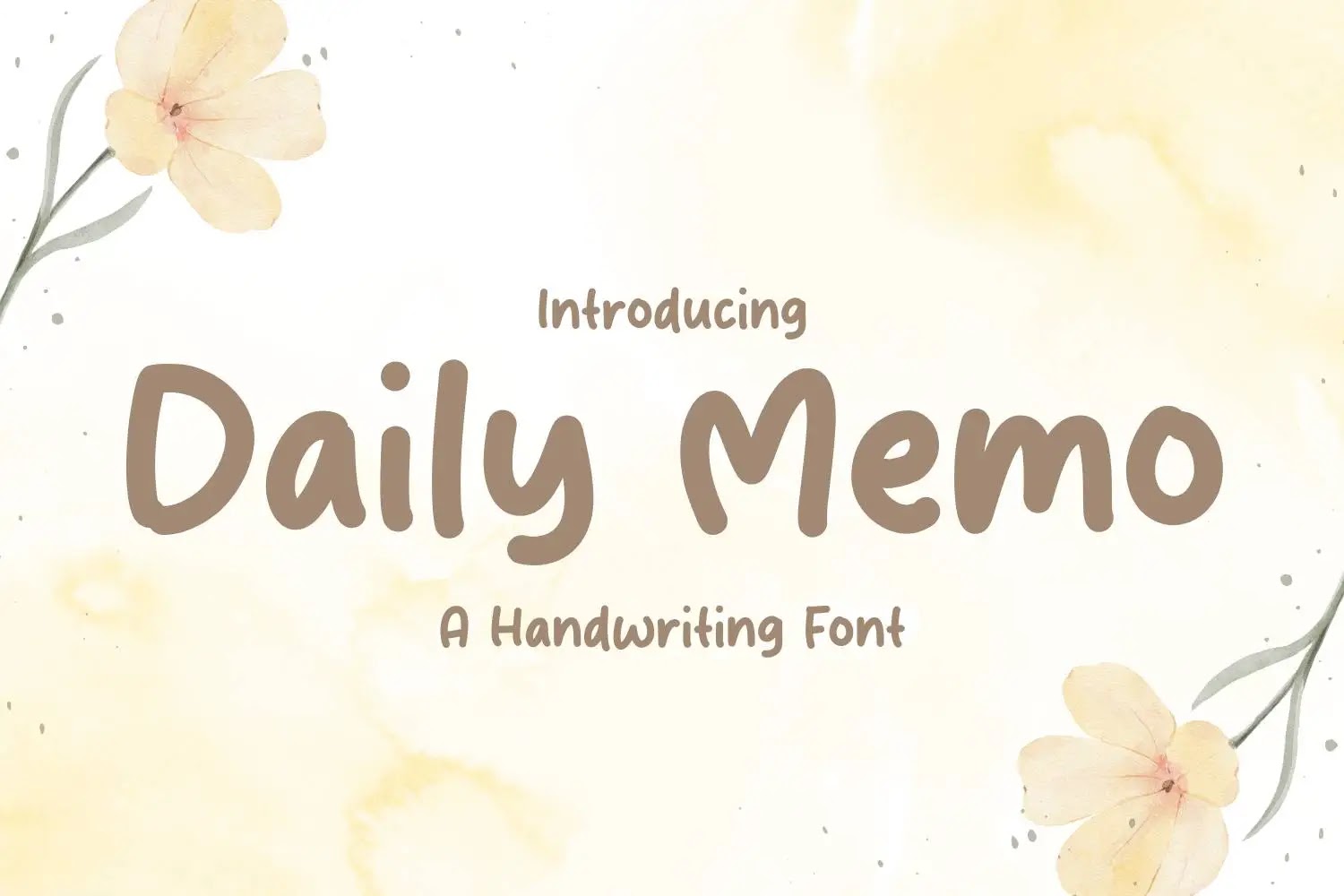
Daily Memo Font is a charming handwritten typeface that captures the ease and spontaneity of everyday writing. Designed to mimic the natural flow of pen on paper, this font brings a casual, friendly vibe to your projects. Whether you're designing personal notes, journals, quotes, or branding materials, Daily Memo Font adds an authentic and approachable touch.
The font includes uppercase and lowercase letters, numerals, punctuation marks, and multilingual support, ensuring it’s ready for a wide range of creative applications. Available in TTF, OTF, and WOFF formats, Daily Memo Font installs easily on both PC and Mac systems. Its clean, handwritten style makes it ideal for designs that need a personal feel without sacrificing legibility.